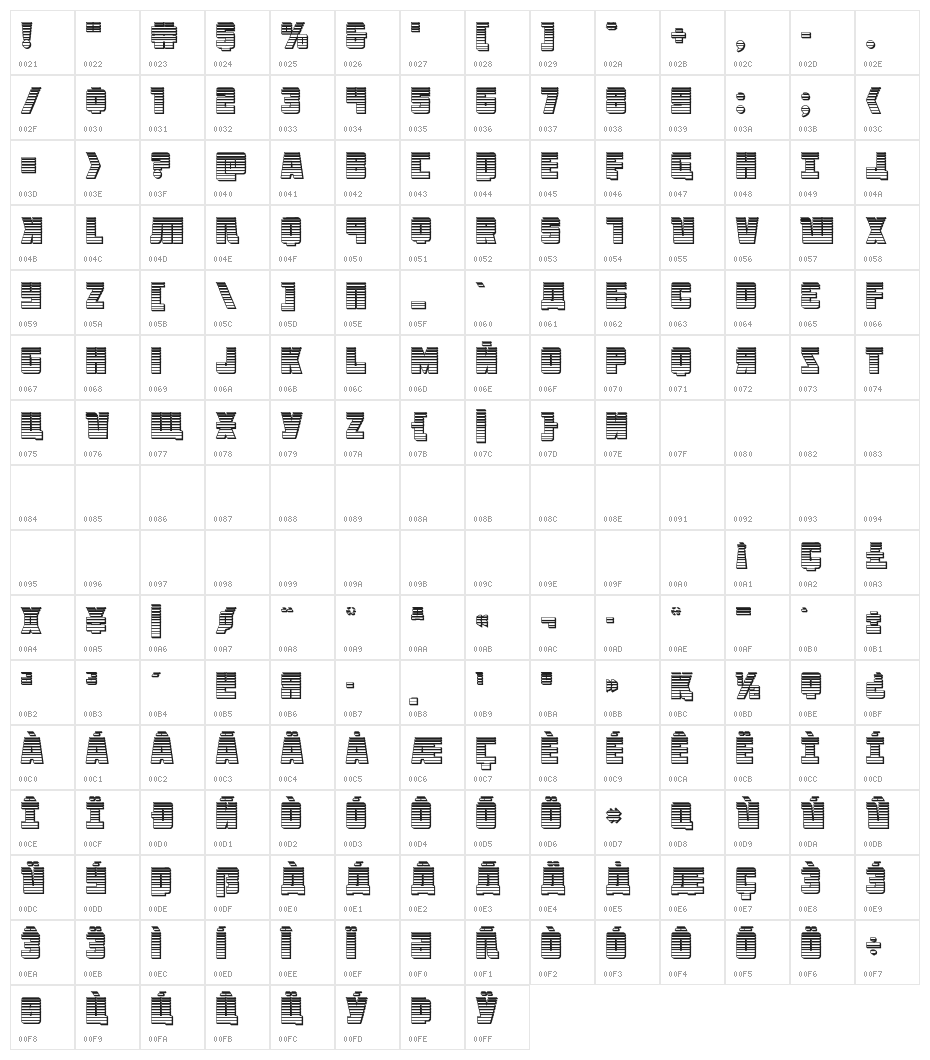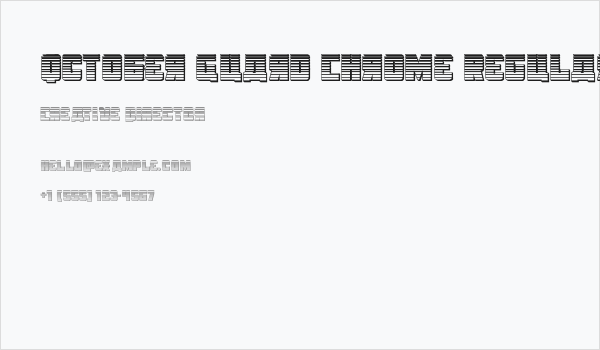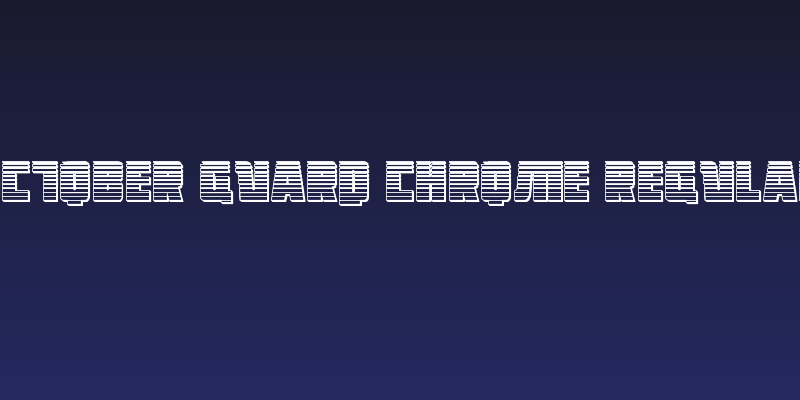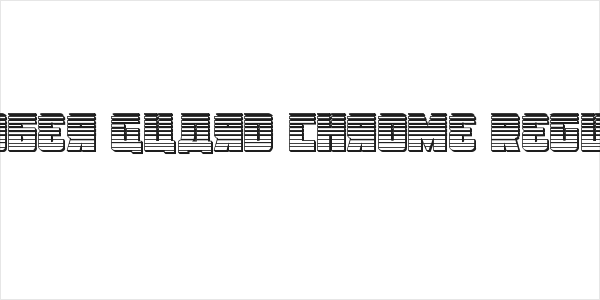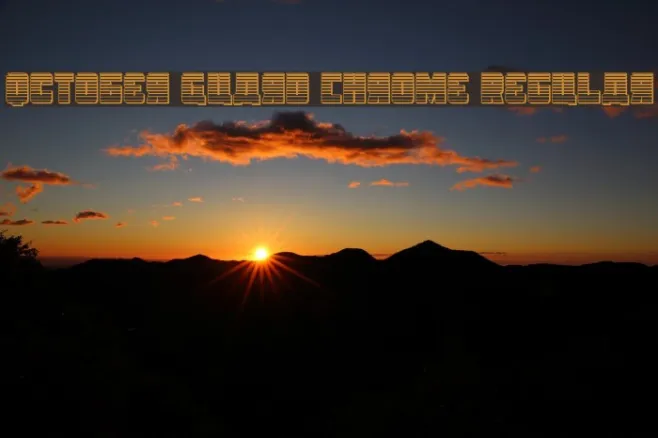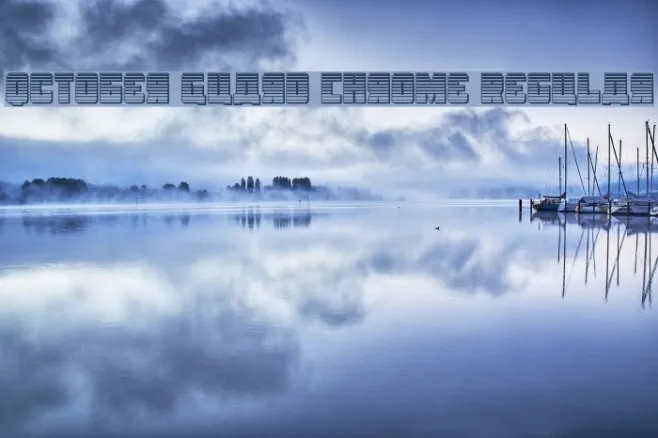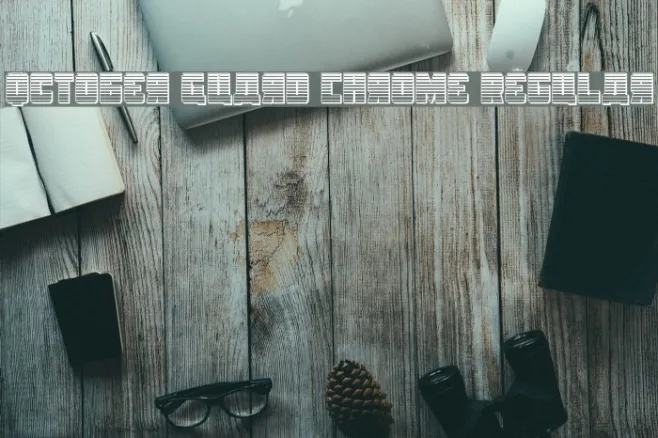
October Guard Chrome Regular Font
October Guard Chrome Regular Description
This font features a bold, three-dimensional design with a striped pattern that gives it a futuristic and industrial feel. The characters are uppercase and have a blocky, geometric structure, which is enhanced by the horizontal lines running through each letter. The font's unique style is eye-catching and makes it suitable for projects that require a strong visual impact. The numbers and special characters maintain the same design consistency, ensuring a cohesive look across all text elements.
| Proposed Projects | Ideal for use in sci-fi themed designs, video game titles, posters, and branding materials that require a modern and striking appearance. |